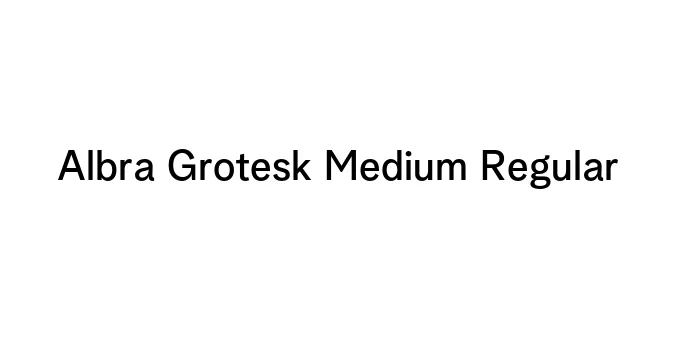
Albra Grotesk Medium Regular
Designed by Yang Lu
Albra Grotesk Medium is part of the larger Albra family. It features low contrast and a high x-height, making it exceptionally readable at smaller sizes. The "Medium" weight offers a professional, sturdy appearance that bridges the gap between light display fonts and heavy bold weights.